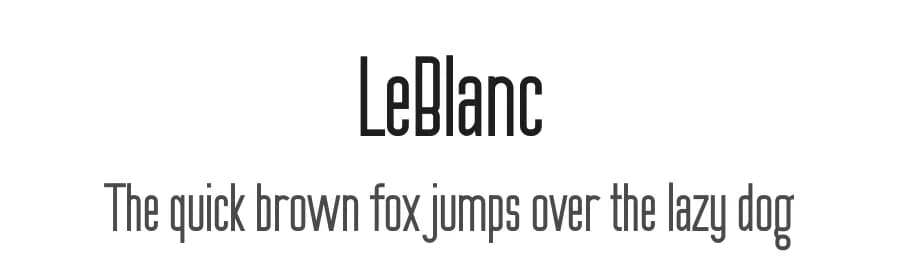
About LeBlanc Font
Download Le Blanc, a powerful and compact sans-serif font set with a retro feel. The blend of classic and modern components produces a sophisticated look that will enhance any project. With a variety of typeface colors to choose from, youÂ’ll have plenty of options to make your work stand out. Best of all, itÂ’s completely free to download! DonÂ’t miss out on the opportunity to elevate your design game with Le Blanc.
LeBlanc Specifications
LeBlanc Font is a versatile sans-serif font that works for both headings and body text. Pair it with a contrasting serif or slab serif font to add visual interest and a clear distinction between titles and body copy.
LeBlanc Font